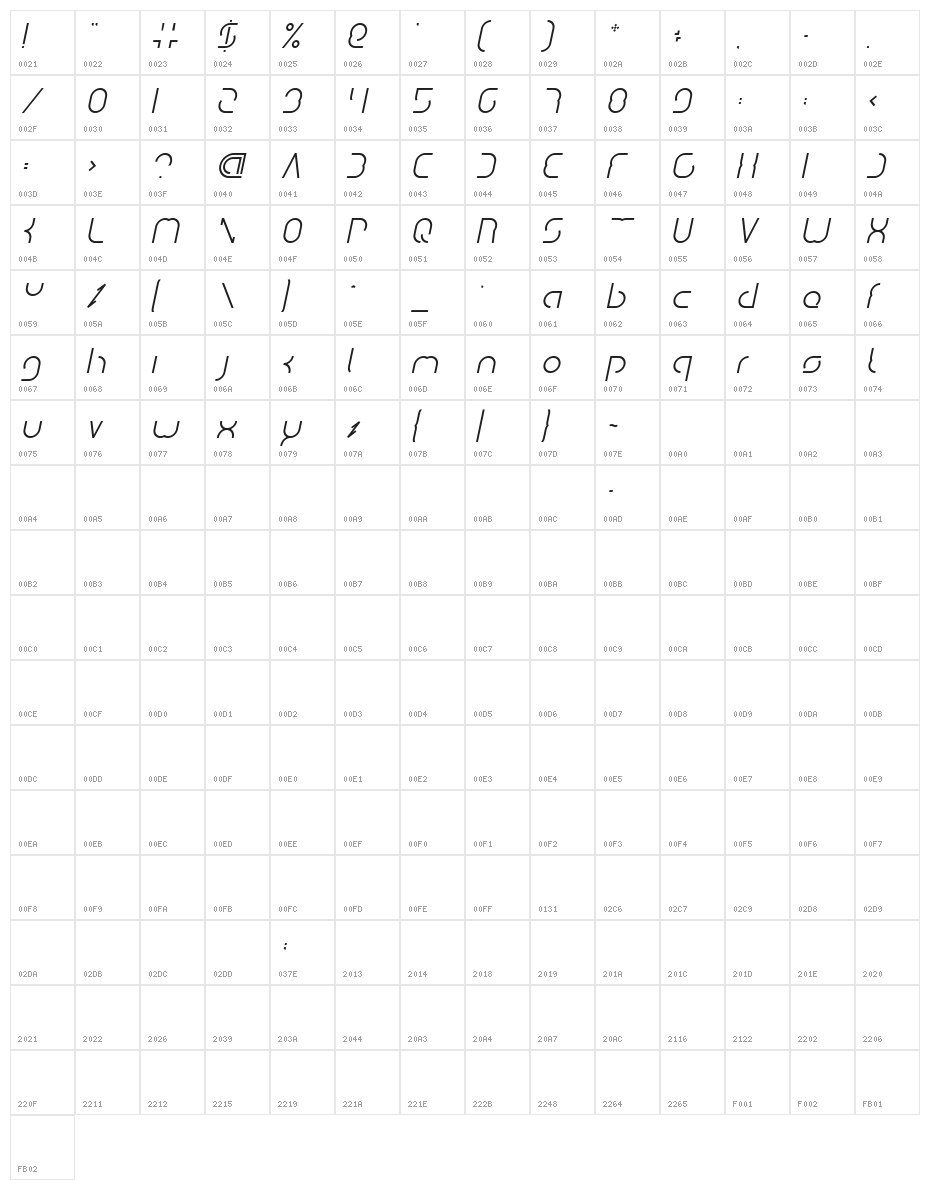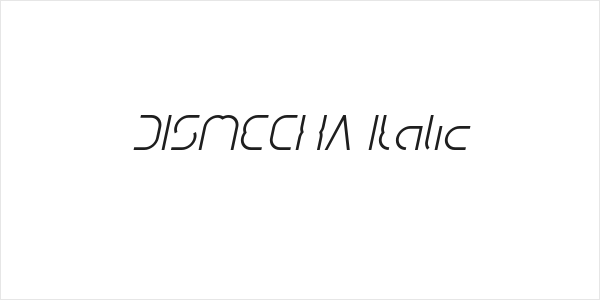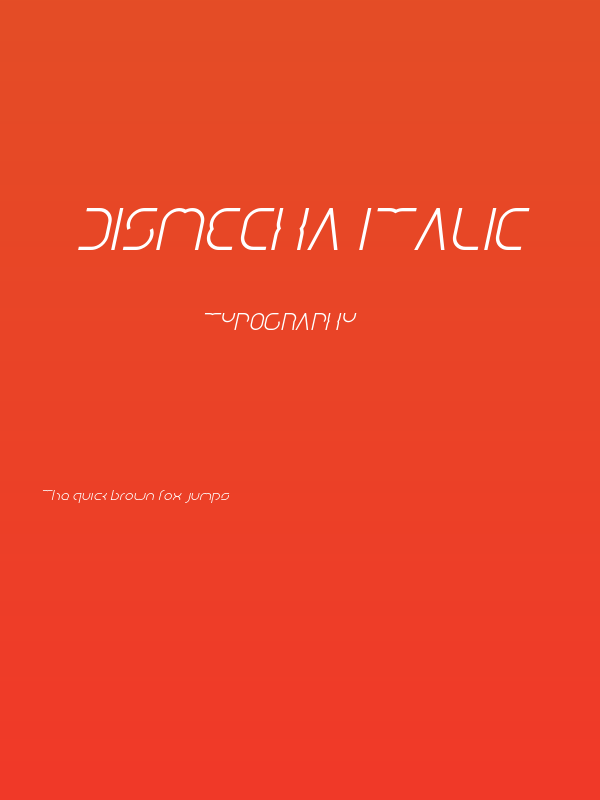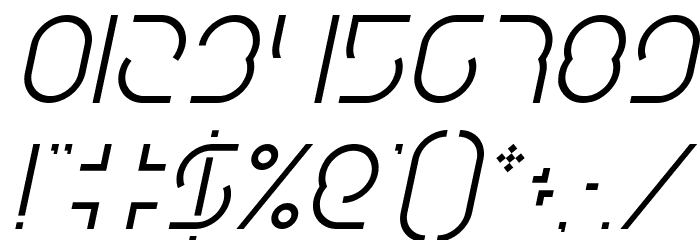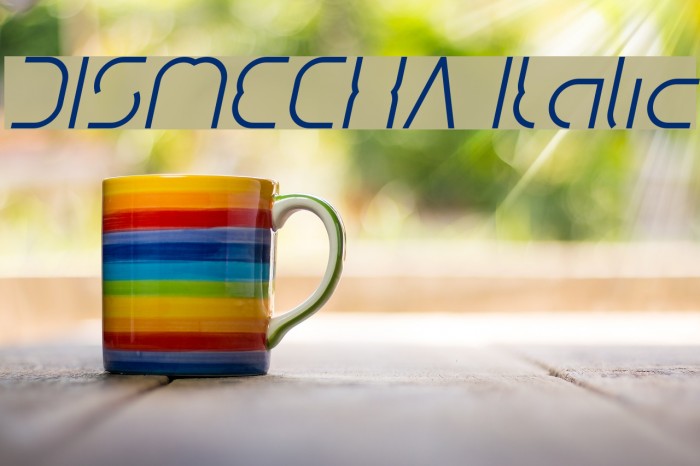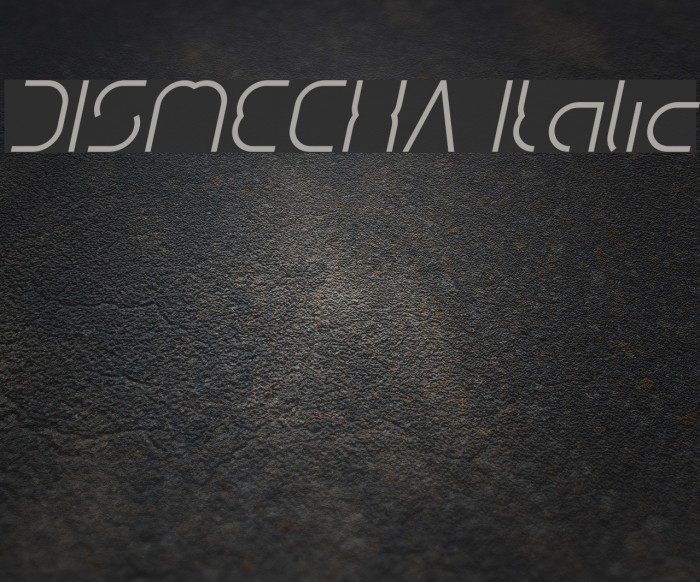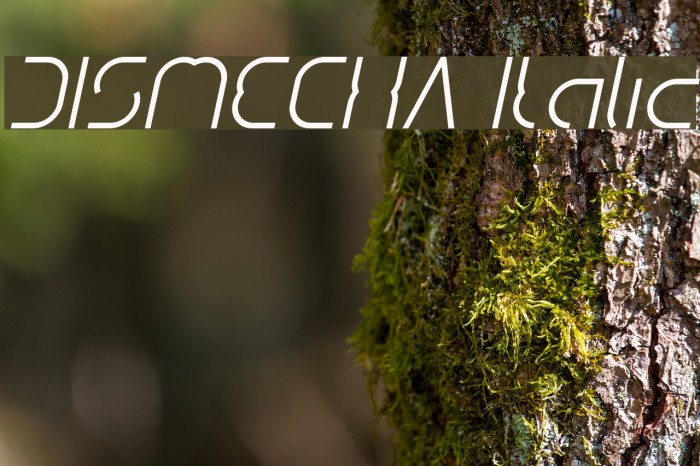
DISMECHA Italic Font
DISMECHA Italic Description
This font features a futuristic and geometric design with an italic slant, creating a dynamic and forward-moving appearance. The characters are composed of clean, sharp lines and curves, giving it a sleek and modern aesthetic. The uppercase and lowercase letters maintain a consistent style, with unique cuts and angles that add to its distinctiveness. Numbers and special characters follow the same design principles, ensuring uniformity across all elements. The font's overall look is both technical and stylish, making it suitable for contemporary design projects.
DISMECHA-ITALIC UPPERCASE
DISMECHA-ITALIC LOWERCASE
DISMECHA-ITALIC OTHER CHARS
| Overall Style | Futuristic |
| Use Case | Logos, Headlines, Digital Interfaces |
| Proposed Projects | Ideal for tech branding, modern advertising, sci-fi themed designs, and digital interfaces. |